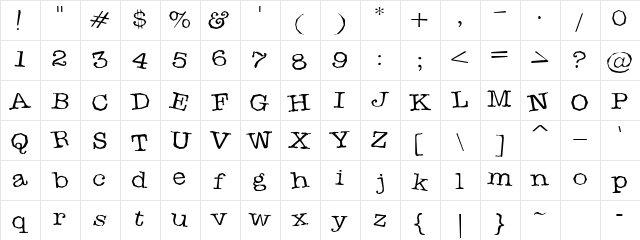
LDJ Pretty Smart Regular
Design Context for LDJ Pretty Smart Typeface
LDJ Pretty Smart takes a measured approach to typography — its balanced proportions and neutral character make it a reliable workhorse for both digital and print work.